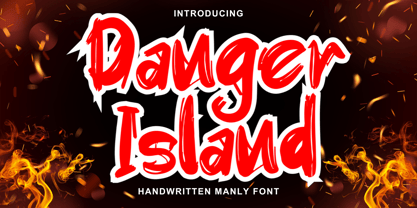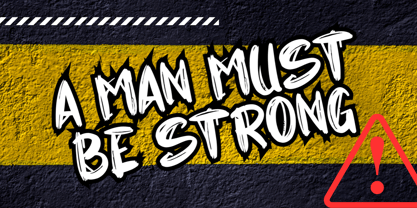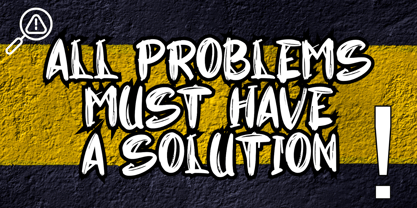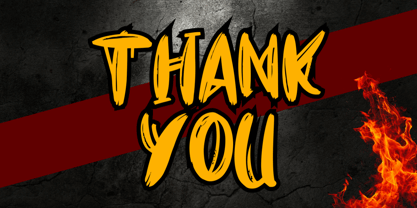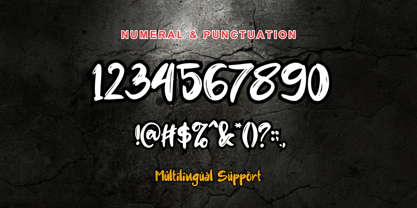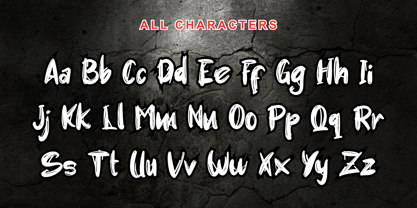
Danger Island
by Andrey Font Design
The Danger Island Font Family was designed by Stephanus Prabowo and published by Andrey Font Design. Danger Island contains 2 styles and family package options. More about this family
Danger Island fonts are perfect for designs that aim to convey a creative, casual, and personal touch. Using it can give your design a more dynamic and natural look that is perfect for a wide range of design projects. This characteristic makes it an ideal choice for a wide range of designs, including logos, posters, greeting cards, and mockup t-shirts. It can be used on a variety of media, whether it’s print or digital, which makes them highly versatile.
Designers: Stephanus Prabowo
Foundry: Andrey Font Design